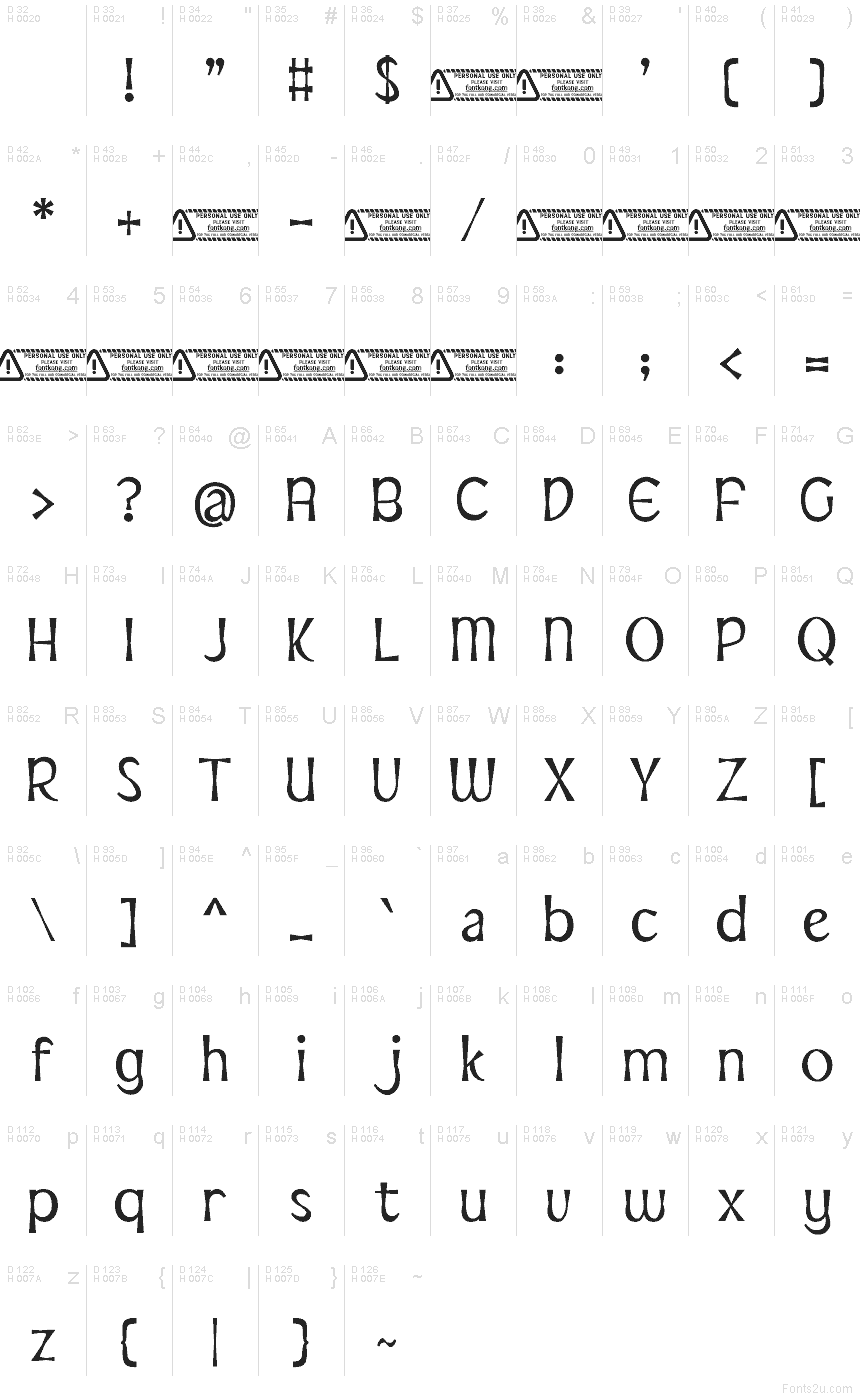
Hoobastic font is a free display font designed by Kong Font with sleek and clean lines. This modern, quirky typeface has a casual elegance that makes it stand out in particular projects. It’s legible, friendly, and fresh in all types of applications.
Hoobastic can be used in branding; advertising; product packaging; business cards; event invites; social media imagery or posts; posters designs for public spaces like airports due to its readability factor ; editorial designs for online blogs or magazines.